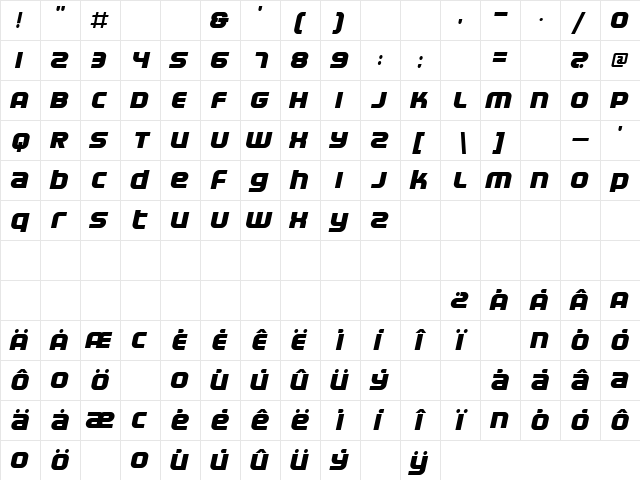
Electrofied BoldItalic
Design Context for Electrofied Typeface
Electrofied is a composed and adaptable typeface that performs quietly and consistently across a wide range of design contexts. The slanted form adds forward momentum and visual energy. Its bold stroke weight gives it real presence on the page.